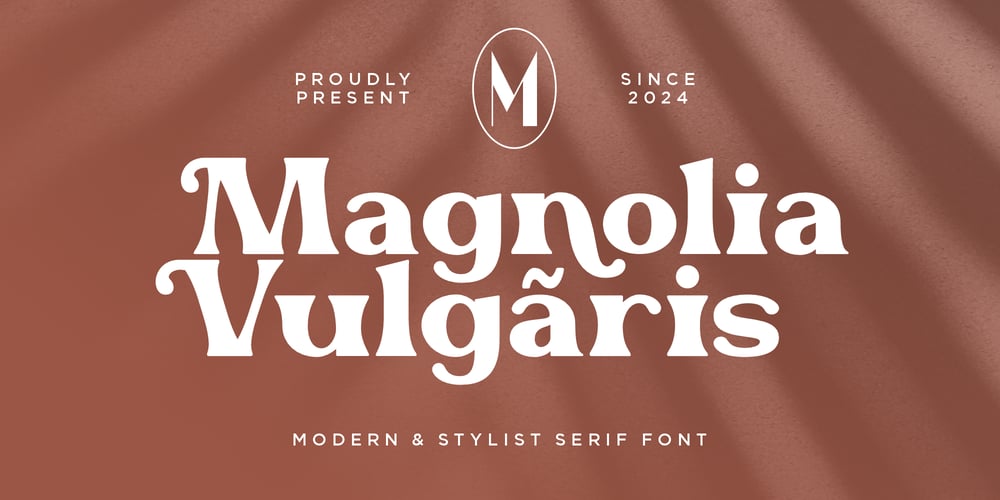
Magnolia Vulgaris Font Family was designed by Hunaiza Aljahsy and published by HunaizaAljahsy. Magnolia Vulgaris contains 1 styles and family package options. IINTRODUCING MOCHA BROWN!!BROMAN is a bold modern display font with serif style. It’s modern and classic font with a unique and deference look . Perfect if you need a dose of fun in your project. Perfect for editorial projects, Logo design, web font, clothing branding, product packaging, magazine headers, or simply as a stylish text overlay to any background image.